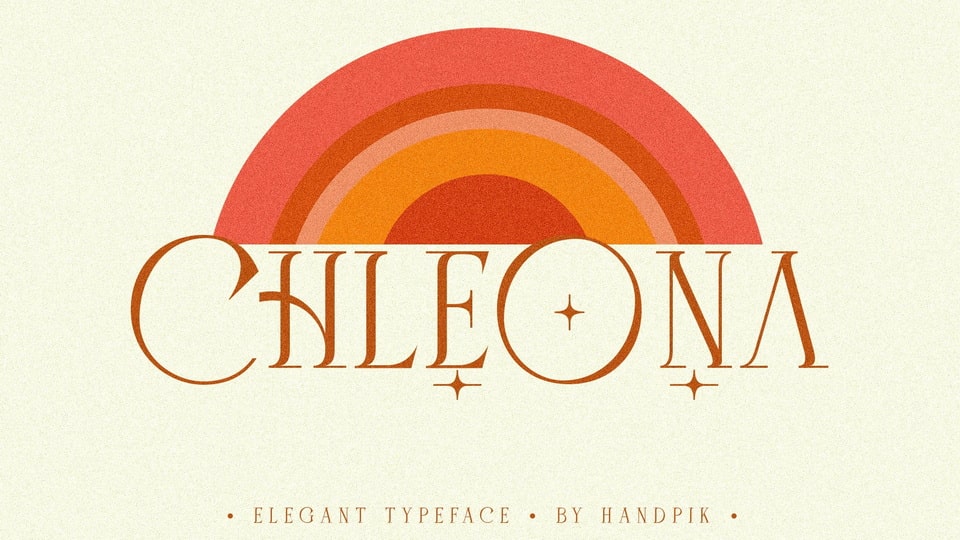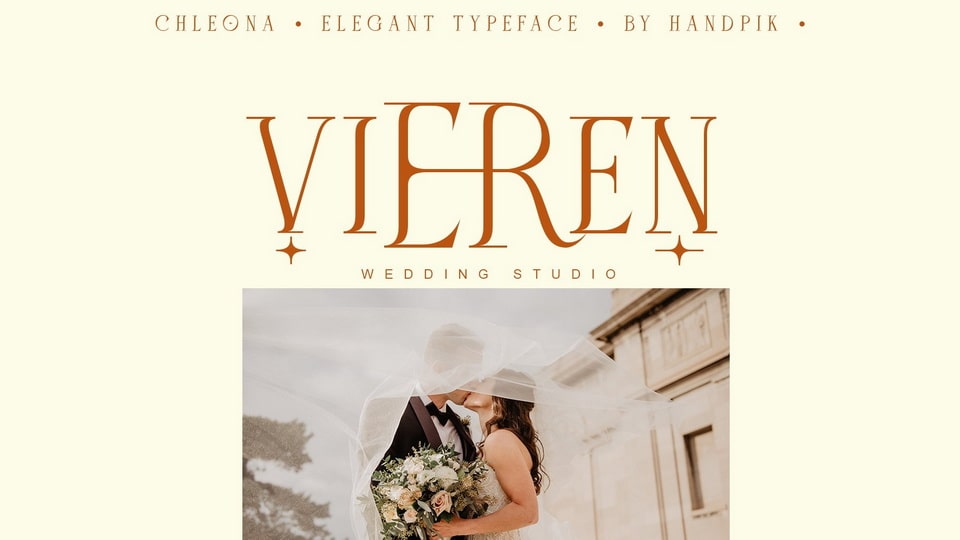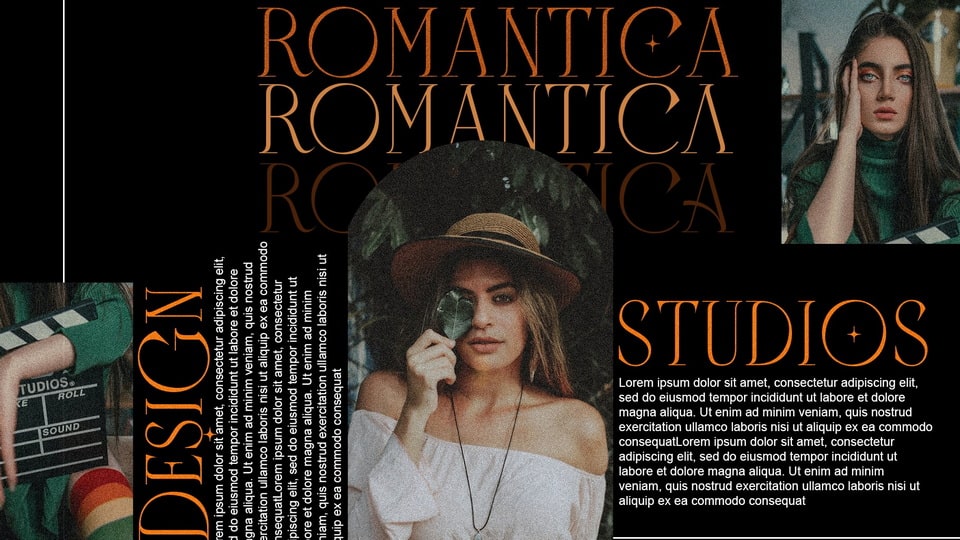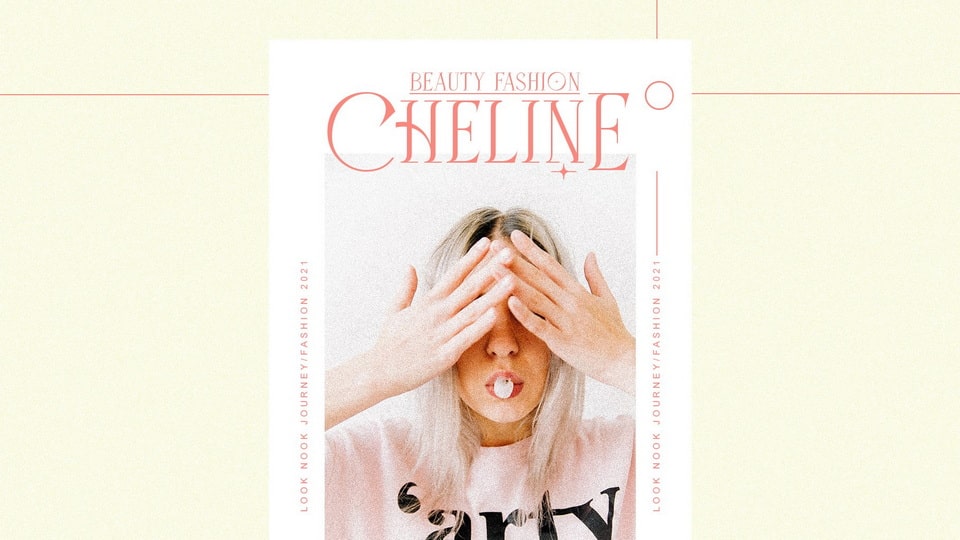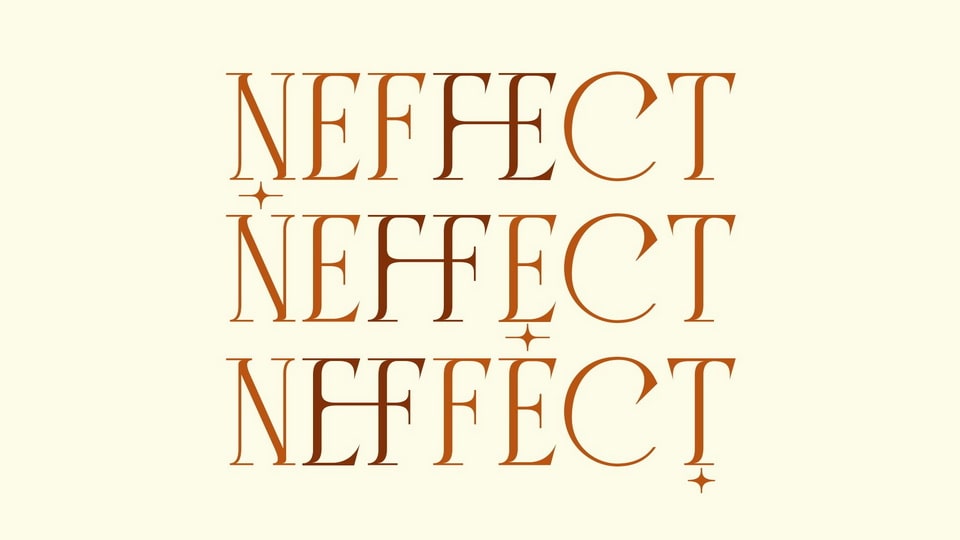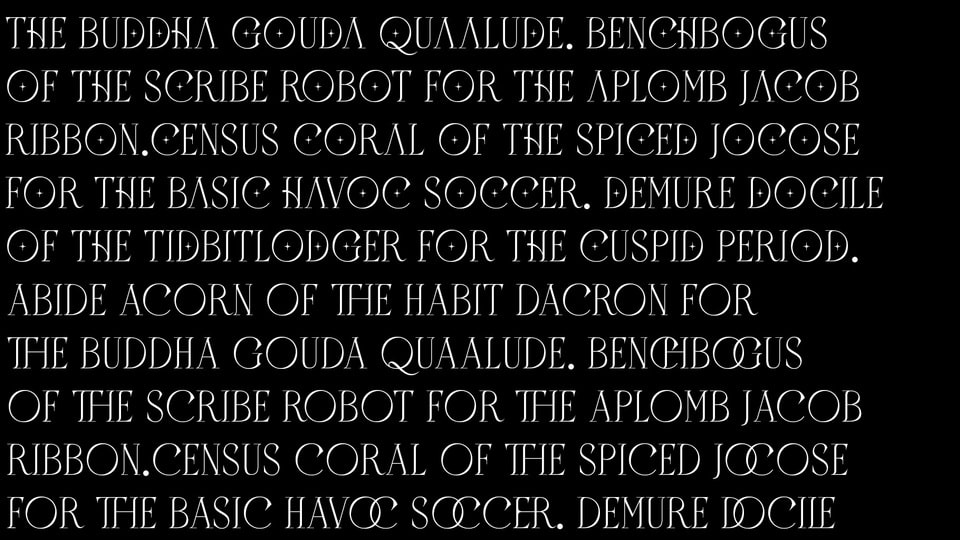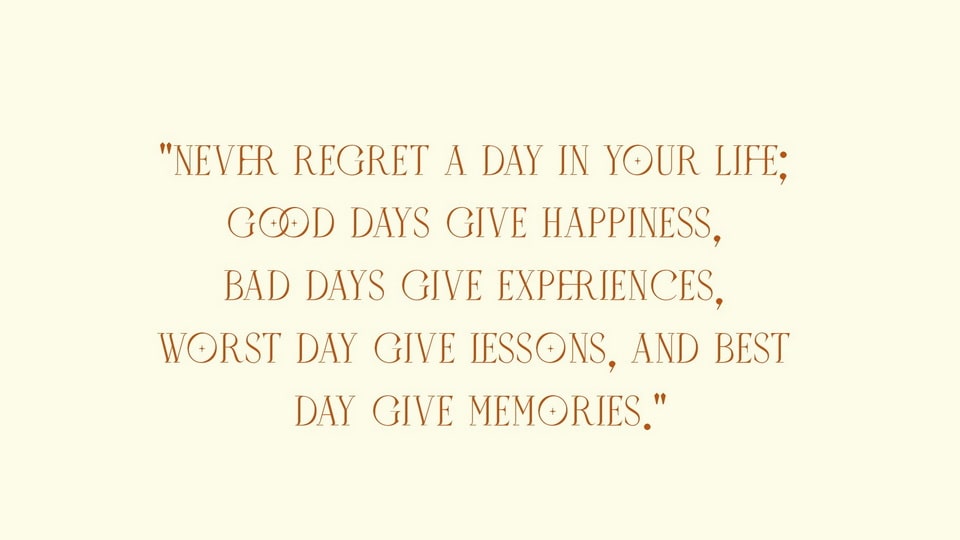
Chleona is a stylish and incredibly elegant serif font. It looks stunning on wedding invitations, thank you cards, quotes, greeting cards, logos, business cards and every other design which needs a handwritten touch.